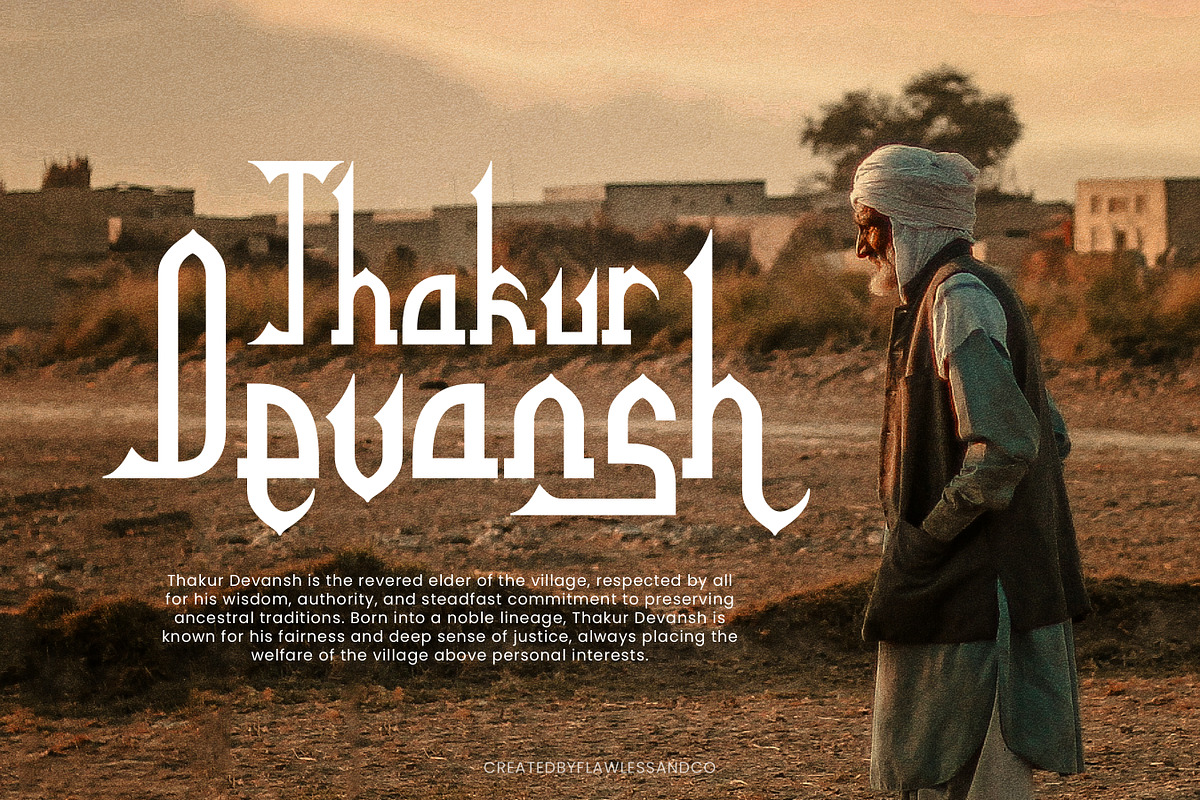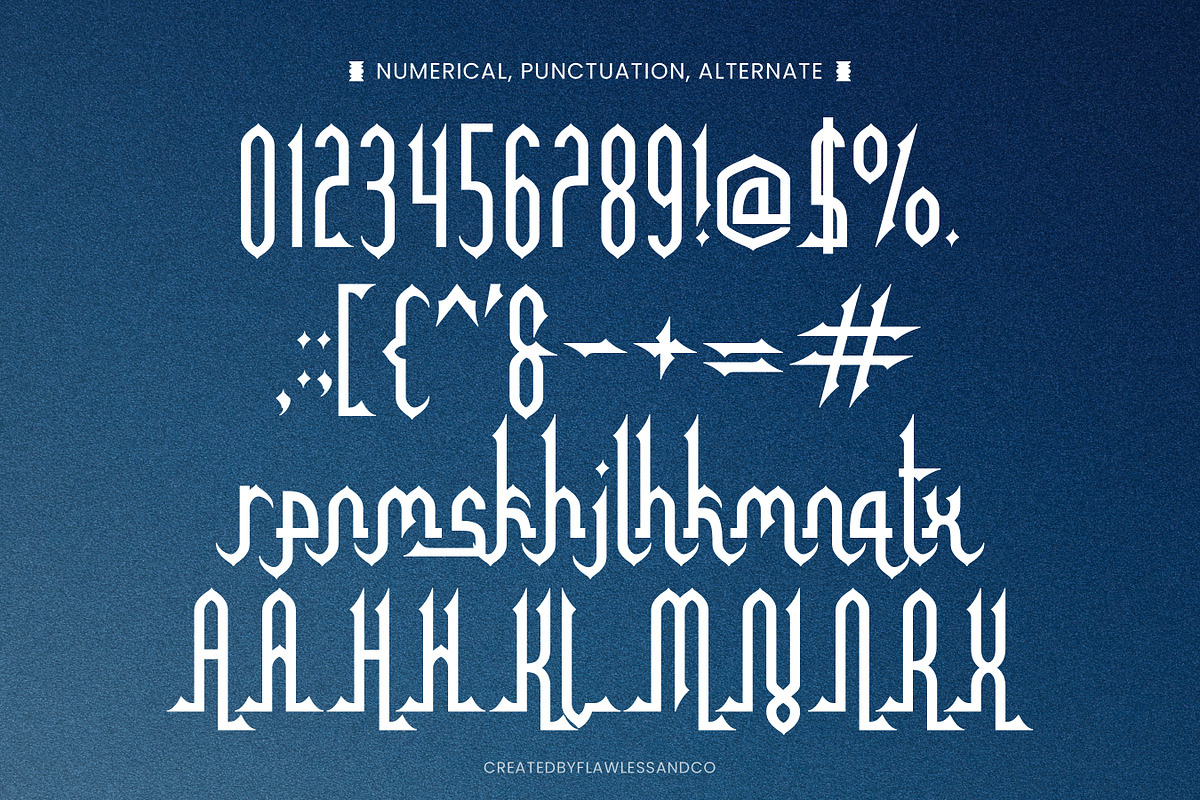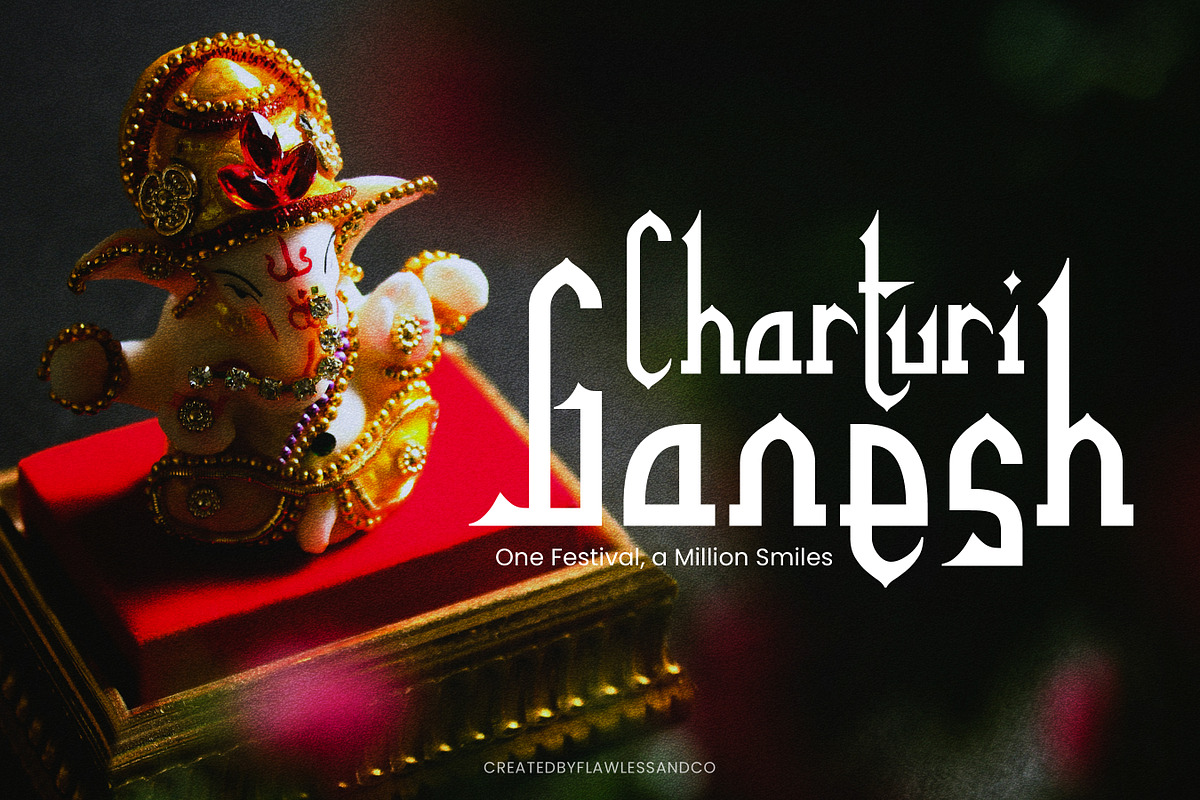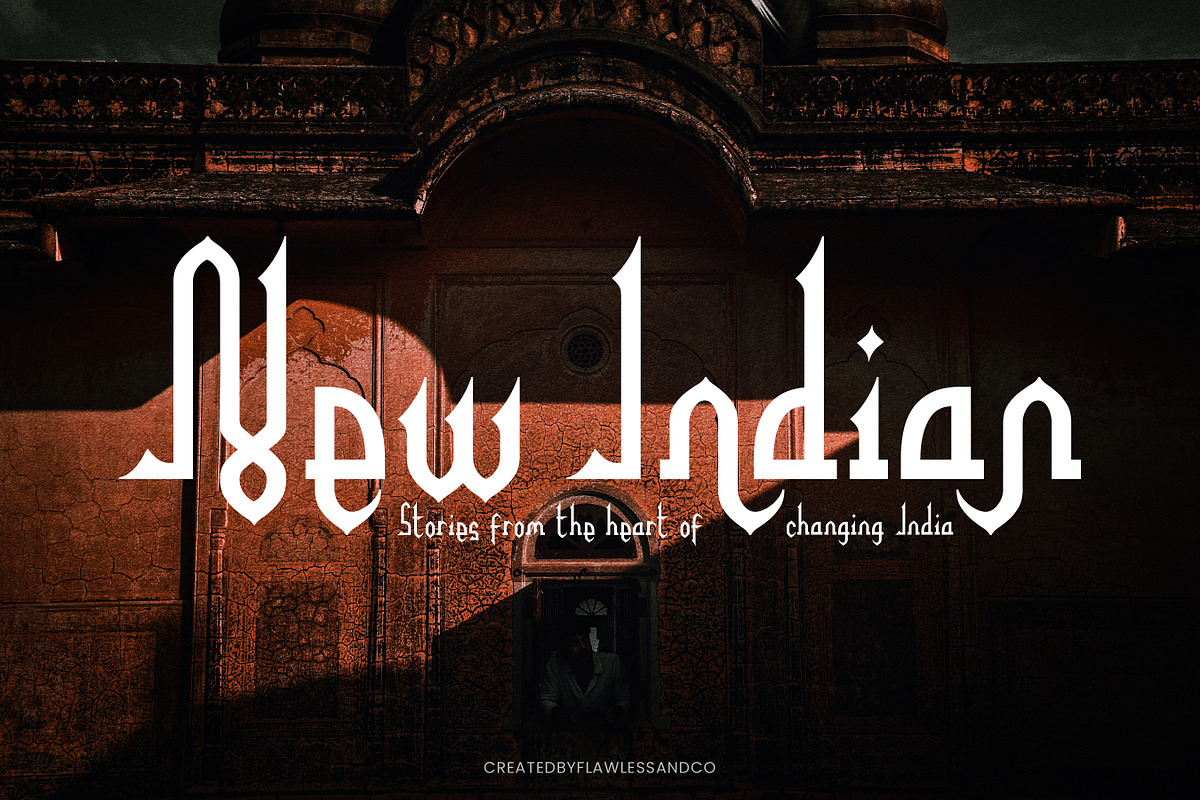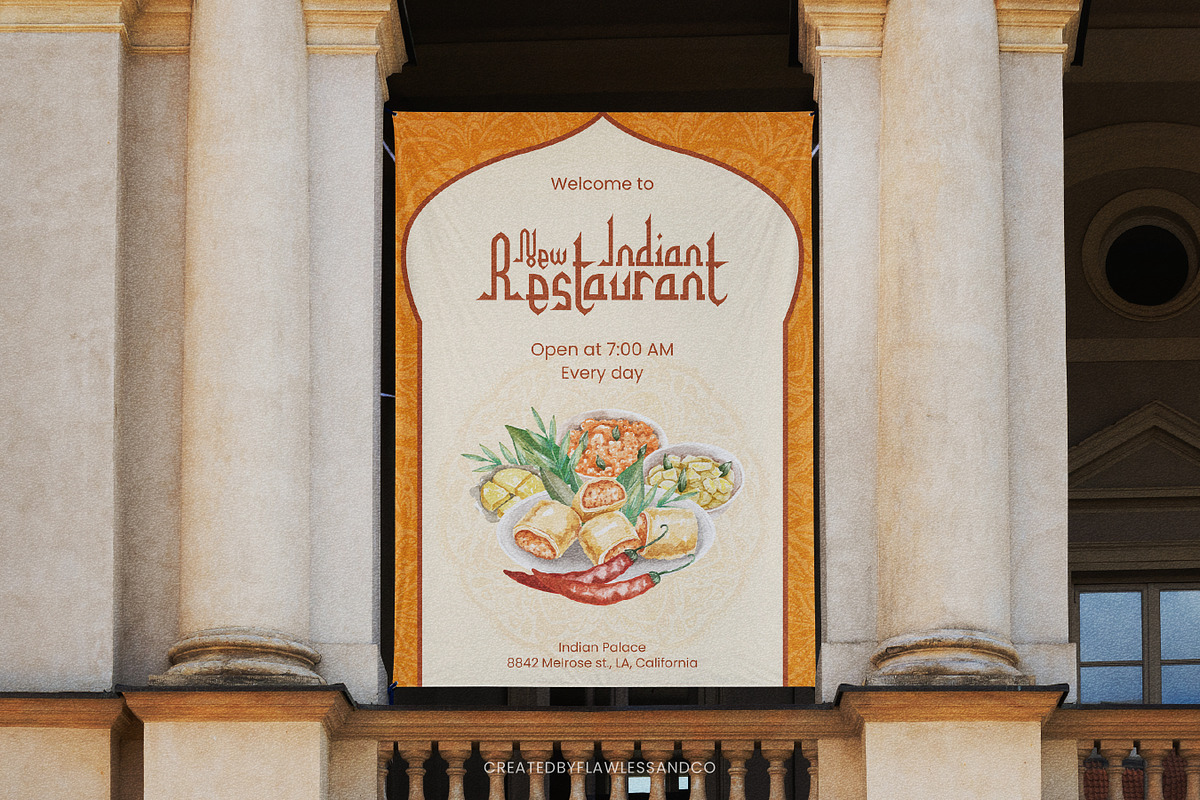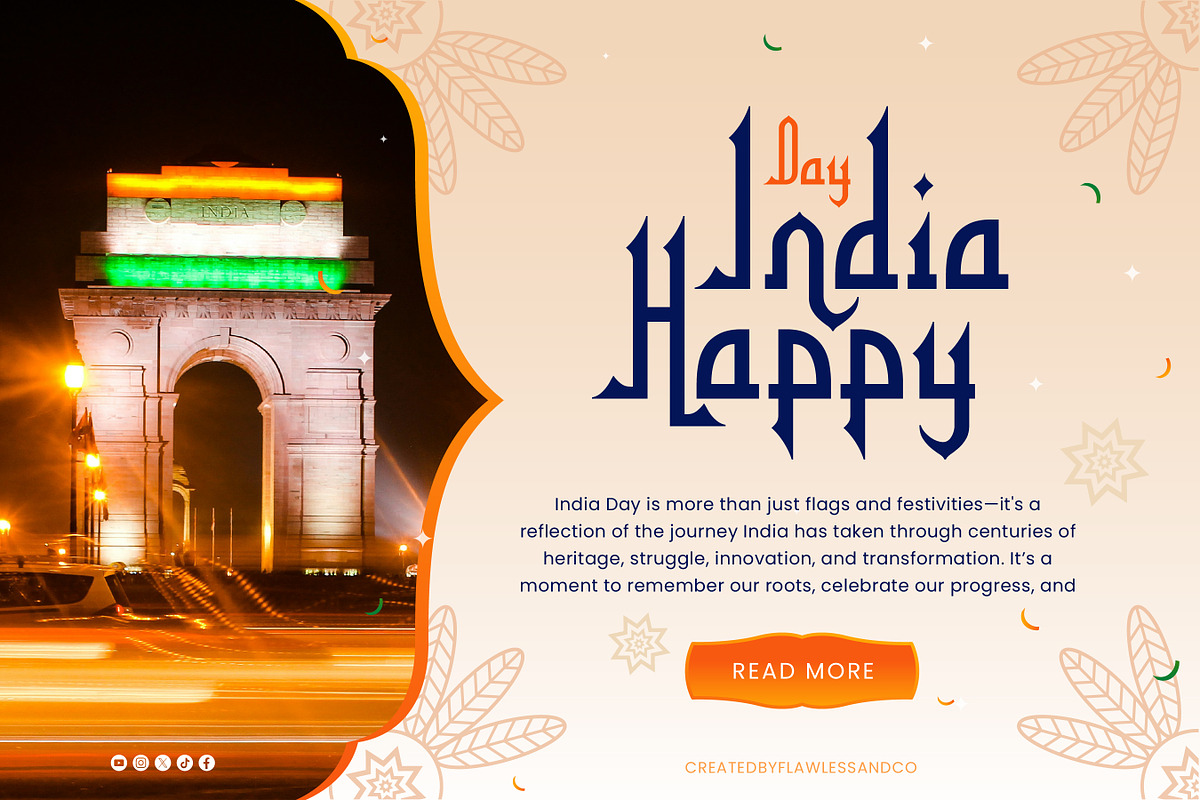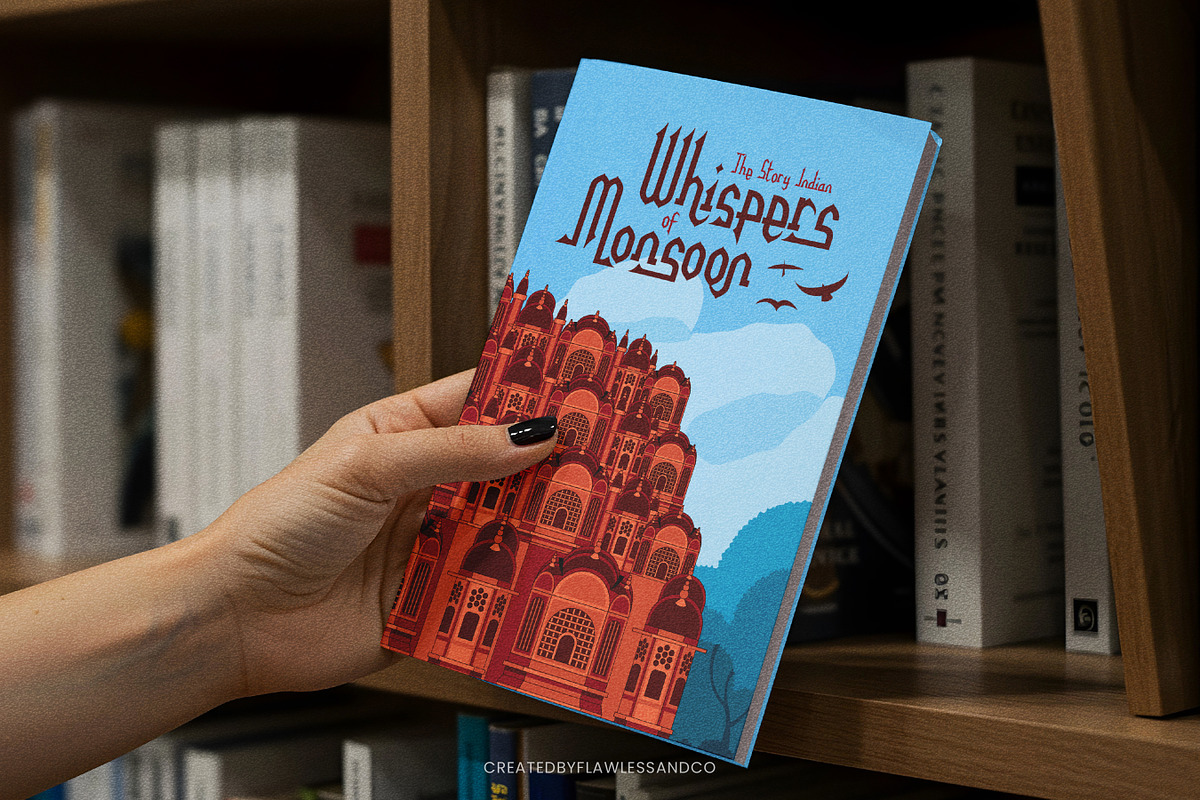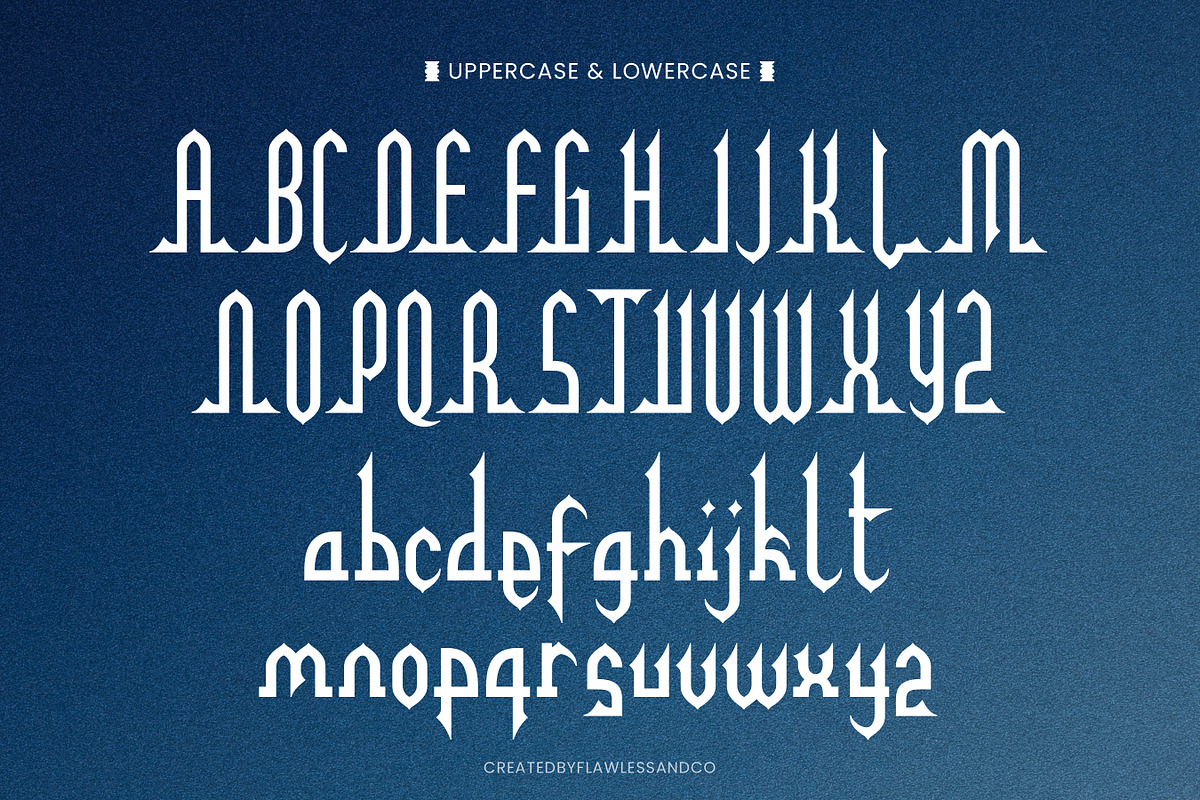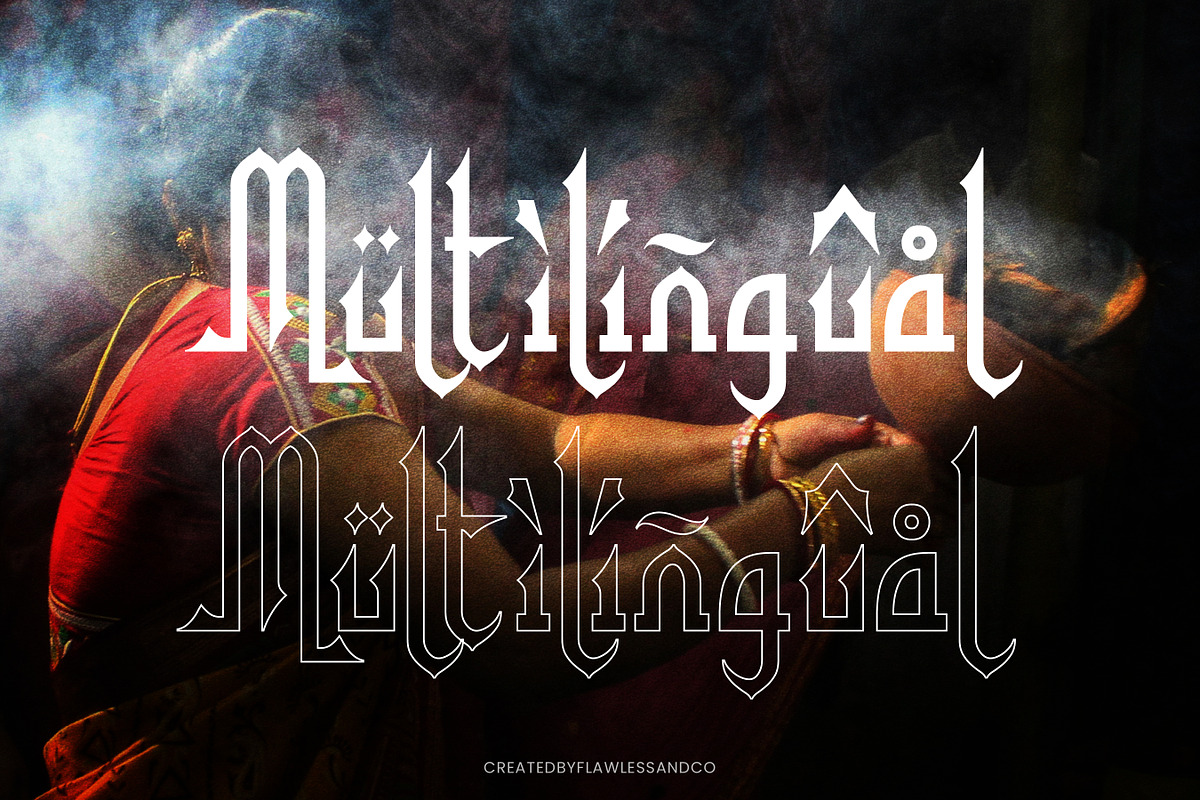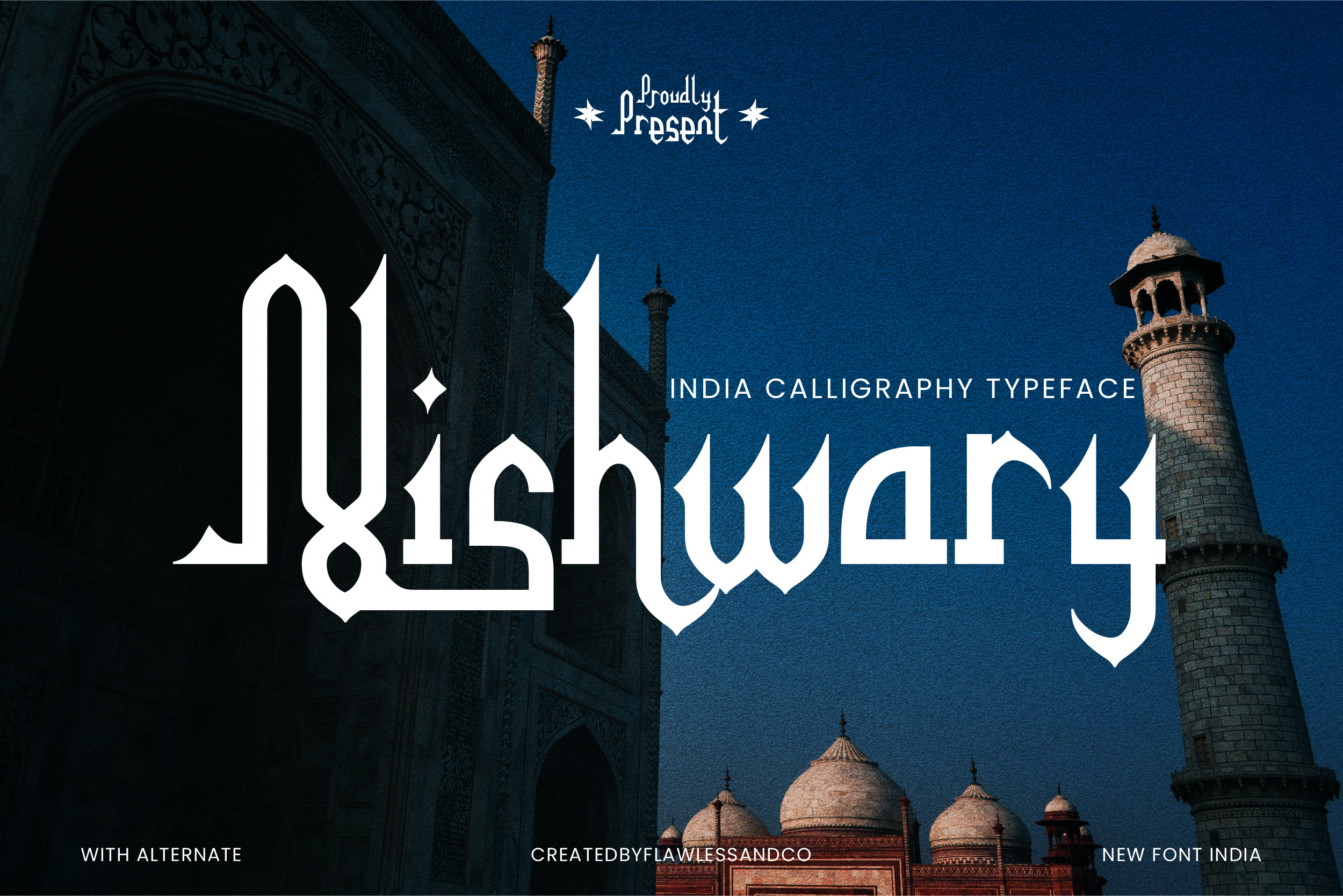
Nishwary - India Font
Nishwary - India Calligraphy
Nishwary is an India Calligraphy Typeface — a bold yet refined font that blends traditional Indian script aesthetics with a touch of gothic influence. With its ornamental details, sharp strokes, and uniquely crafted letterforms, Nishwary brings a ceremonial charm to your creative projects. Inspired by ancient Indian scripts and the cultural richness of the subcontinent, Nishwary evokes heritage, celebration, and storytelling through every glyph. This typeface is designed with alternate characters, giving you versatile options to express uniqueness in every headline, branding piece, or cultural event promotion.
Who Should Use Nishwary?
Nishwary is made for designers, creatives, and storytellers who want to infuse their work with rich cultural depth and expressive visual character.
Perfect for those who:
- Design for Indian restaurants, cafés, or spice brands
- Create editorial layouts, travel guides, or historical book covers
- Develop festival, Diwali, or Holi-themed marketing campaigns
- Craft logos or signage for businesses rooted in heritage and tradition
- Want a calligraphy font that feels both bold and ceremonial
Whether you're branding a business or celebrating a story — Nishwary brings the essence of India to life through every curve and serif.
A Must-Have Font for Cultural and Brand Designers
Whether you’re crafting a logo for an Indian restaurant, designing a book cover for historical fiction, or creating editorial layouts rooted in culture—Nishwary adds authenticity, elegance, and bold presence.
Why Choose Nishwary for Brand and Logo Projects?
Nishwary is designed to infuse your brand with cultural depth and striking personality. Inspired by traditional Indian calligraphy, this font features distinctive, handcrafted letterforms that create a lasting impression. Its strong character and ornamental elegance make it ideal for logos, brand marks, and visual identities that aim to stand out while honoring heritage. Whether you're building a luxury label, cultural project, or creative campaign, Nishwary gives your brand a timeless, meaningful voice.
Suitable For:
- India-themed branding & packaging
- Restaurant logos & menu designs
- Cultural posters & festival promotions
- Editorial headlines & book covers
- Greeting cards & ceremonial invites
- Travel blogs & heritage tour branding